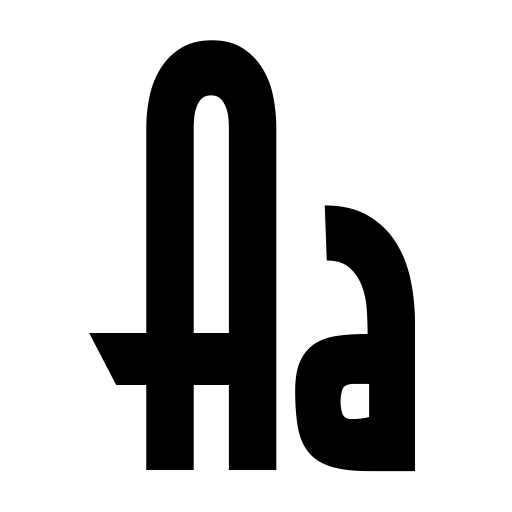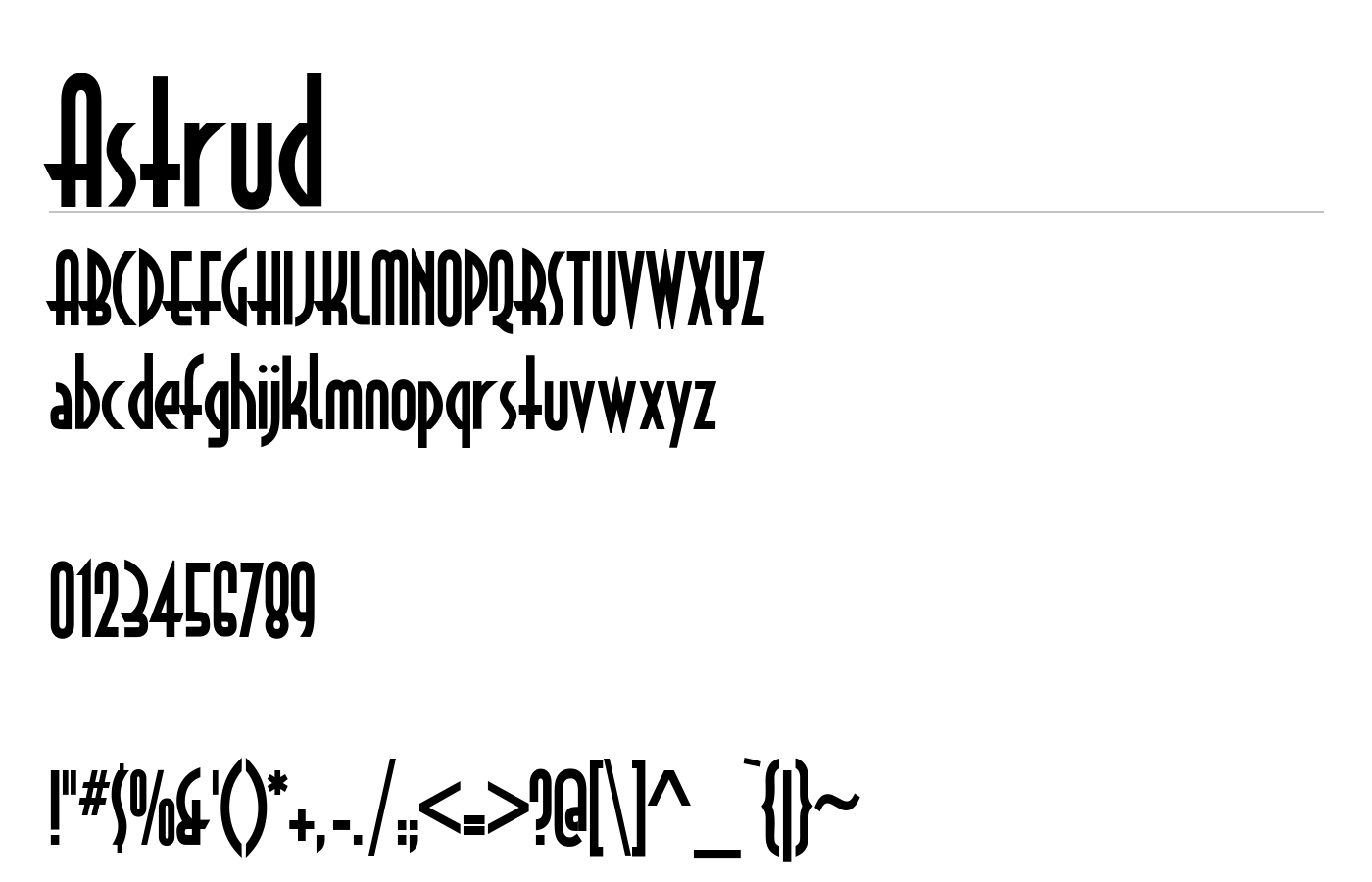
Astrud is a condensed sans serif font with a striking, narrow form and tall x-height that creates a modern and avant-garde feel. Its high contrast and sharp, geometric shapes give it an edgy, artistic personality, making it ideal for bold headlines, posters, and creative branding that seeks a distinctive and contemporary look. This font works best when you want to capture attention with a sleek, stylish, and slightly futuristic vibe.
Astrud Font
About Astrud Font
| Designer | P. Wiegel |